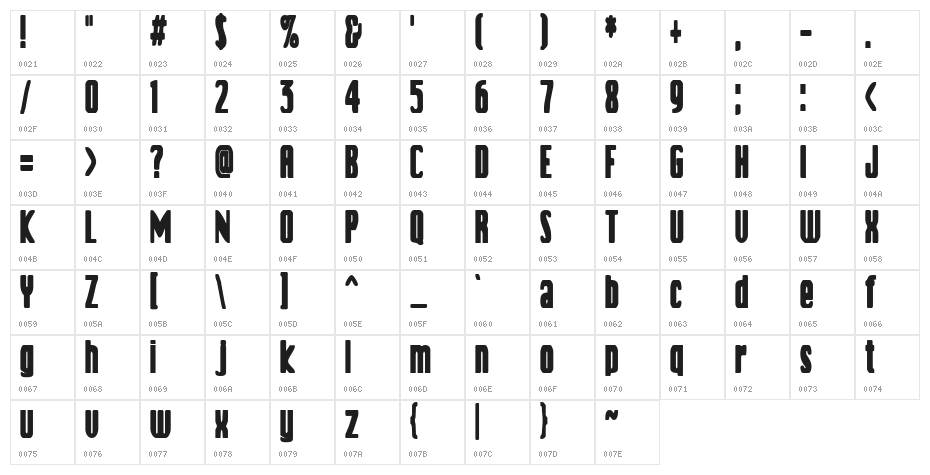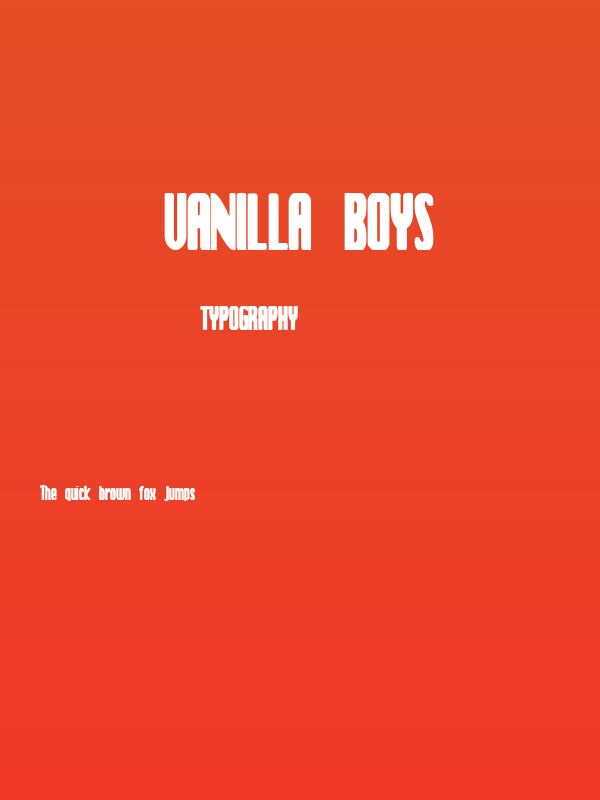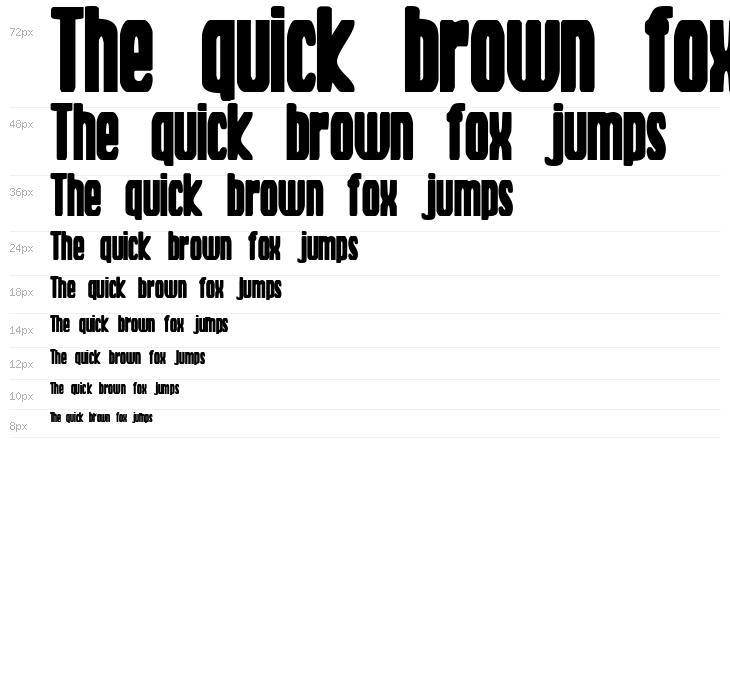
Vanilla Boys Font
Vanilla Boys Description
This font features a bold and impactful design with thick, uniform strokes that create a strong visual presence. The characters are tightly spaced, contributing to a compact and cohesive look. The uppercase and lowercase letters maintain a consistent style, with rounded edges and a slightly condensed form. The numerals and special characters follow the same bold aesthetic, ensuring uniformity across all glyphs. This font's heavy weight and solid structure make it ideal for designs that require a commanding and assertive appearance.
| Proposed Projects | Ideal for posters, headlines, logos, and branding materials that require a bold and assertive look. |